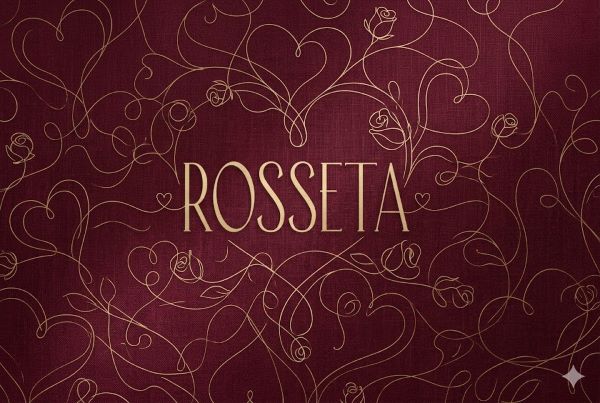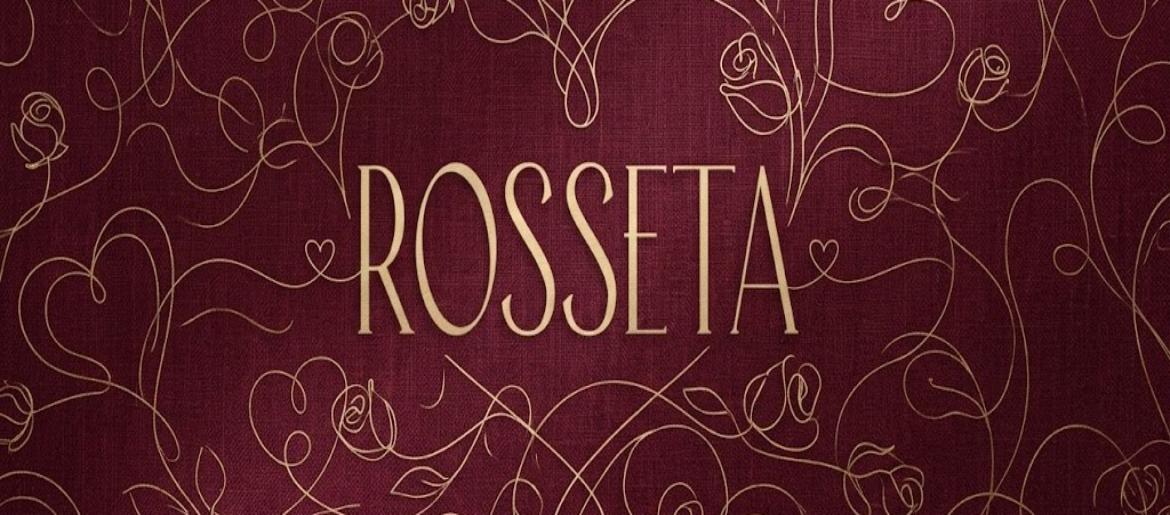
Rosseta Font
Rosseta by Angin Studio is a vintage sans-serif that earns its adjectives: condensed, elegant, and genuinely feminine without being precious. Its thin strokes and clean silhouette carry the composed confidence of early twentieth-century fashion typography, making it an instinctive choice for high-end branding, event invitations, editorial headers, and packaging with a timeless edge. That narrow stance means it commands space without overwhelming a layout. Covering 64 languages, it brings classic refinement to a wide range of design contexts. Free for personal and commercial use.